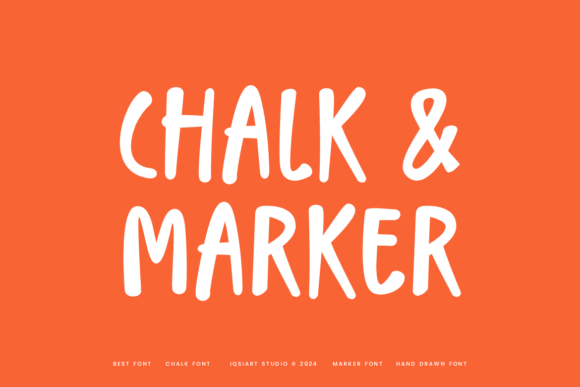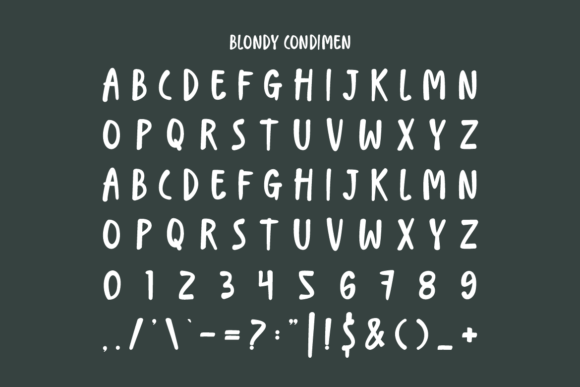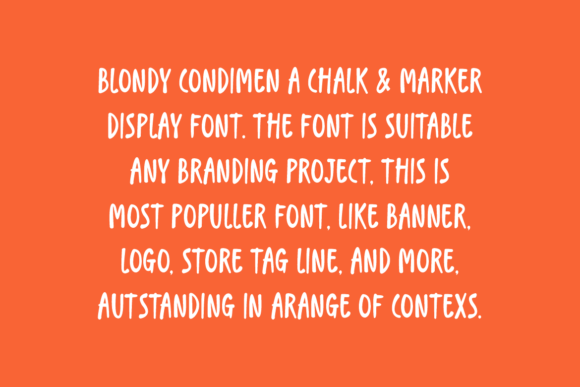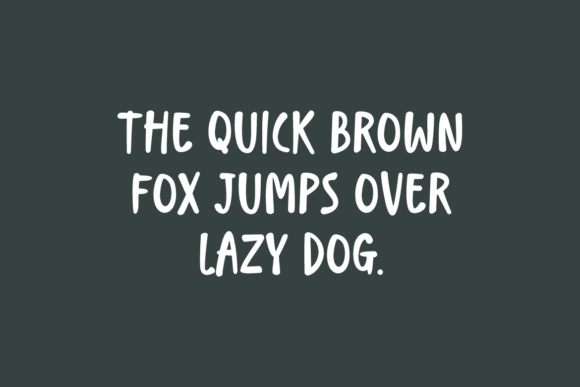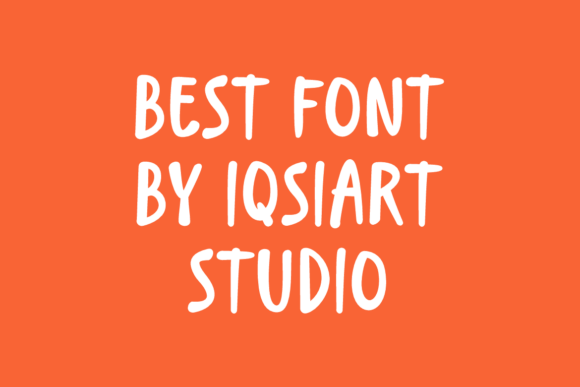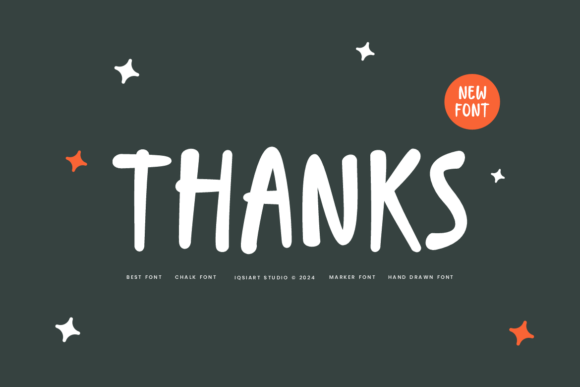
The Blondy Condimen Font: A Fun and Bold Addition to Your Design Toolbox
I’ll never forget the design project that led me to discover the Blondy Condimen font. I was working on a fun poster for a local craft fair, and I needed a font that would capture the playful, artistic vibe of the event. As I scrolled through my font library, I stumbled upon Blondy Condimen, and it was love at first sight! 💕
This fun and bold marker-style font has become a staple in my design toolbox, and I’m excited to share its awesomeness with you. In this article, we’ll dive into the world of Blondy Condimen, exploring its features, uses, and some clever tips and tricks to get the most out of this amazing font.
An Honest Review: What I Love (and a Few Quirks) 🤔
- ✅ Unique and playful design: Blondy Condimen’s hand-drawn feel and smooth curves make it perfect for creative designs, posters, or invitations.
- ✅ Casual and artistic vibe: This font adds a touch of whimsy to any text, making it ideal for projects that require a bit of personality.
- ✅ Easy to read: Despite its playful nature, Blondy Condimen is surprisingly legible, even at smaller font sizes.
A Few Quirks ⚠️
While Blondy Condimen is an amazing font, it’s not perfect. Here are a few things to keep in mind:
- ⚠️ Limited use in formal designs: Due to its playful nature, Blondy Condimen might not be the best fit for formal or professional projects.
- ⚠️ Glyph limitations: Some users have reported that the font could benefit from more glyphs, especially for non-English languages.
The Story Behind Blondy Condimen: Designer Inspiration
Blondy Condimen was created by a talented font designer who wanted to capture the essence of playful, artistic expression. The font’s unique design is inspired by the world of street art and graffiti, with a dash of whimsy and fun. While the designer’s exact story is unknown, it’s clear that Blondy Condimen was created with the intention of bringing a smile to users’ faces.
| Font Name | Blondy Condimen Font |
| Author | IqsiartStudio |
Q: What type of projects is Blondy Condimen best suited for?
A: Blondy Condimen is perfect for creative designs, posters, invitations, and any project that requires a playful, artistic touch.
Q: Is Blondy Condimen available in different languages?
A: While Blondy Condimen supports multiple languages, some users have reported limitations in terms of glyph availability. Be sure to test the font with your specific language needs.